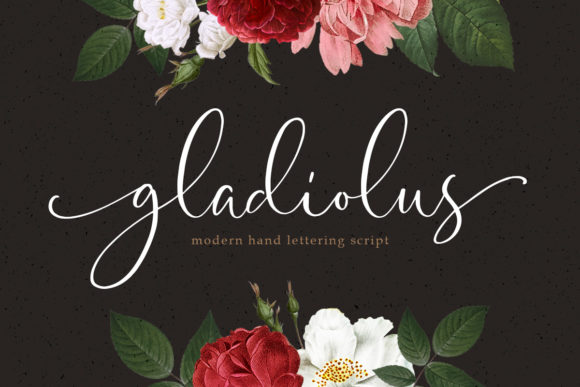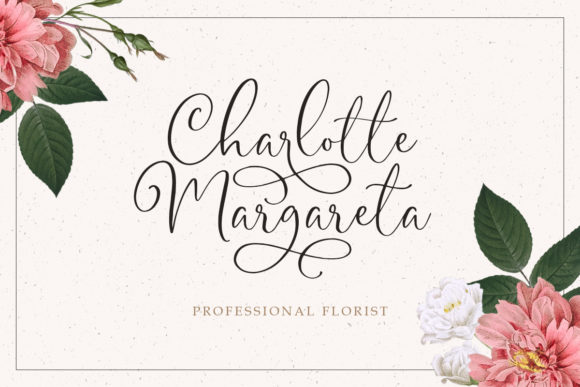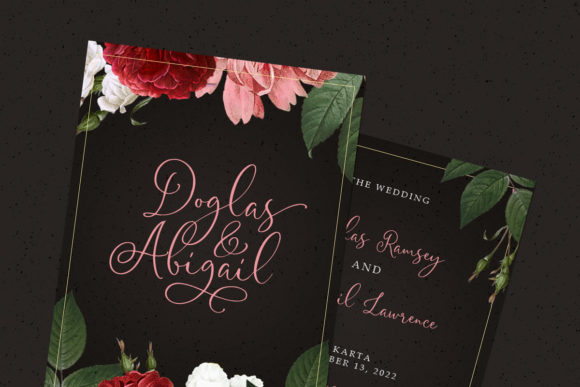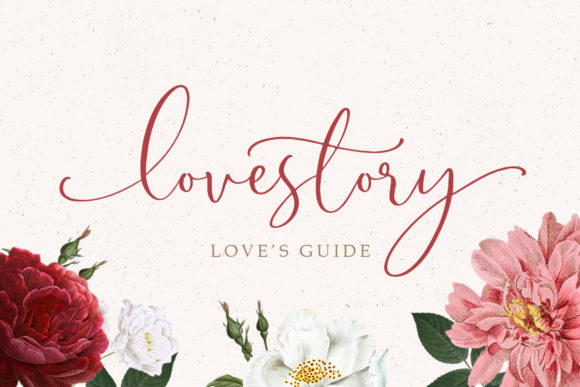
Gladiolus Font: Elegant Calligraphy Script for Wedding & Logo Design
About the Gladiolus Font
Get ready to be inspired by Gladiolus Font, a fresh and dynamic typeface for modern creators. Gladiolus is a gorgeous calligraphic script that will elevate any crafting idea to the highest level. Fall in love with this fancy script font!
Gladiolus excels in applications requiring a touch of elegance and sophistication, such as wedding invitations, logos for boutique brands, or short, impactful headlines. Its ornate nature makes it less suitable for body text or UI elements where readability is paramount; long passages set in Gladiolus would be difficult to read.
Pairing Gladiolus effectively depends on the desired balance. For a more modern feel, consider pairing it with a clean sans-serif like Lato or Montserrat. To emphasize the calligraphic nature, a simple serif like Garamond or Playfair Display would create a classic, harmonious look. Avoid pairing it with other highly decorative fonts to prevent visual clutter.
Gladiolus possesses a distinctly elegant and refined personality. It projects a sense of high-quality craftsmanship and is best suited for brands aiming to communicate luxury, artistry, or a personalized touch.